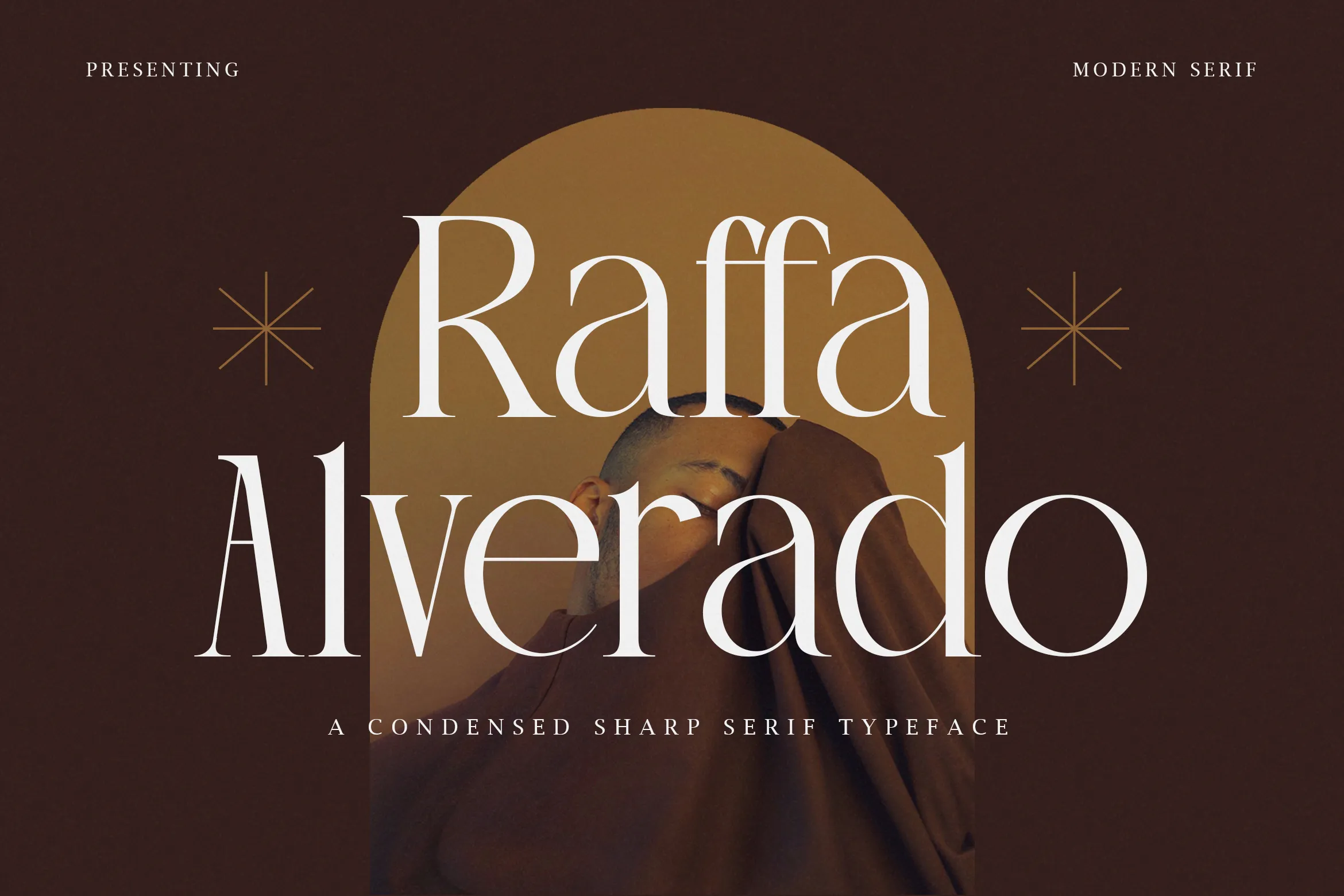
30 Hidden Wisdom from Book Quotes for the Modern Soul
Avid readers usually find book quotes as a voice for the silent emotions humans share. They typically capture the nuance of human struggle and heights of aspirations. Explore the wealth of untapped wisdom that resonates across generations we’ve compiled from favorite books and authors.
Book Quotes on Life, Nature, and Simple Truths
- “It is a fine thing to have a reward for duty, but it is a much finer thing to have a reward for love.” — Black Beauty by Anna Sewell
- “The world is so full of a number of things, I’m sure we should all be as happy as kings.” — Little House on the Prairie by Laura Ingalls Wilder
- “The best way to treat obstacles is to use them as stepping-stones. Laugh at them, tread on them, and let them lead you to something better.” — Mr. Galliano’s Circus by Enid Blyton
- “The most important thing we learn at school is that the most important things can’t be learned at school.” — Totto-Chan: The Little Girl at the Window by Tetsuko Kuroyanagi
- “If you only read the books that everyone else is reading, you can only think what everyone else is thinking.” — Norwegian Wood by Haruki Murakami
- “A little nonsense now and then is cherished by the wisest men.” — Charlie and the Great Glass Elevator by Roald Dahl
- “A book is like a garden, carried in the pocket.” — The Door-to-Door Bookstore by Carsten Henn
- “It’s much more important to be a little bit nice than it is to be a little bit wise.” — The Wind in the Willows by Kenneth Grahame
- “The presence of God is the finest of rewards.” ― Yann Martel, Life of Pi
- “He who is content with what has been done is a legacy from the past; he who is content with what he is doing is a creator of the future.” — The Wisdom of the Sands
- “The truth is rarely pure and never simple.” — The Importance of Being Earnest
Iconic Quotes from Books Regarding Love and Resilience
- “I am not afraid of storms, for I am learning how to sail my ship.” — Little Women by Louisa May Alcott
- “The world breaks everyone, and afterward, many are strong at the broken places.” — A Farewell to Arms by Ernest Hemingway
- “For you, a thousand times over.” — The Kite Runner by Khaled Hosseini
- “I think people make their own faces as they grow.” — The Naughtiest Girl by Enid Blyton
- “Pain is inevitable. Suffering is optional.” — What I Talk About When I Talk About Running by Haruki Murakami
- “Empires have collapsed throughout history. They rise, they build, and they fall. Nothing lasts forever. Not even our pain.” — As Long as the Lemon Trees Grow (2022) by Zoulfa Katouh
- “True courage is when you know you’re licked before you begin, but you begin anyway and you see it through no matter what.” — To Kill a Mockingbird by Harper Lee
- “Love does not consist in gazing at each other, but in looking outward together in the same direction.” — Airman’s Odyssey
- “A heart is not judged by how much you love but by how much you are loved by others.” — The Wonderful Wizard of Oz
- “I am not afraid of the darkness. Real courage is seeing the darkness and walking through it with a candle.” — The Girl Who Drank the Moon
- “It’s a long way to go, but we have our boots on.” — The Railway Children
- “If you find it difficult, it’s because it contains something that is new to you. Every difficult book offers us a brand-new challenge.” — The Cat Who Saved Books
Popular Book Quotes on Hope and Dreams
- “At the end of the day, we are all just looking for a place to belong.” — DallerGut Dream Department Store by Miye Lee
- “People are much more than the mistakes they make.” — The Kite Runner by Khaled Hosseini
- “Even if you can’t change the past, you can change how you live in the present.” — Before the Coffee Gets Cold (Funiculi Funicula) by Toshikazu Kawaguchi
- “Everything is possible for him who believes, and still more for him who hopes.” — The Three Musketeers
- “Tomorrow is always fresh, with no mistakes in it yet.” — Anne of Green Gables by L.M. Montgomery
- “One can’t stay sad very long in such a world, can one?” — Pollyanna by Eleanor H. Porter
- “Don’t worry about the bits you can’t understand. Sit back and allow the words to wash around you, like music.” — Matilda by Roald Dahl
- “It is not only the most difficult thing to know oneself, but the most inconvenient one.” — The Chronicles of Narnia
Creative Use of Famous Book Quotes
These book quotes are also useful to build emotional bridges for social media, posters, and storytelling. Write them with elegant and modern fonts below to leave a noteworthy impression.
1. Craftico
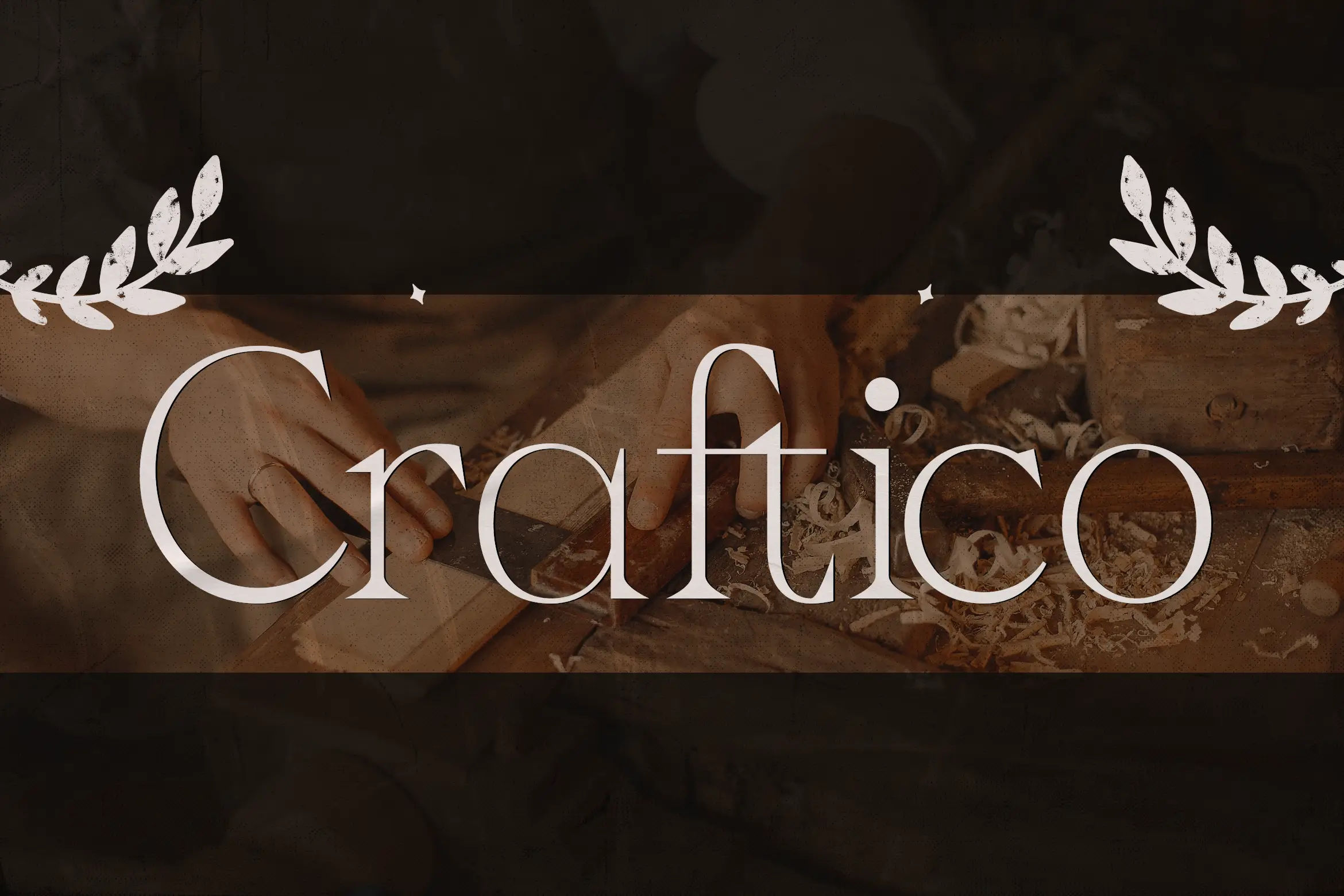
High stroke contrast for sophisticated design flair.
2. Arcadina
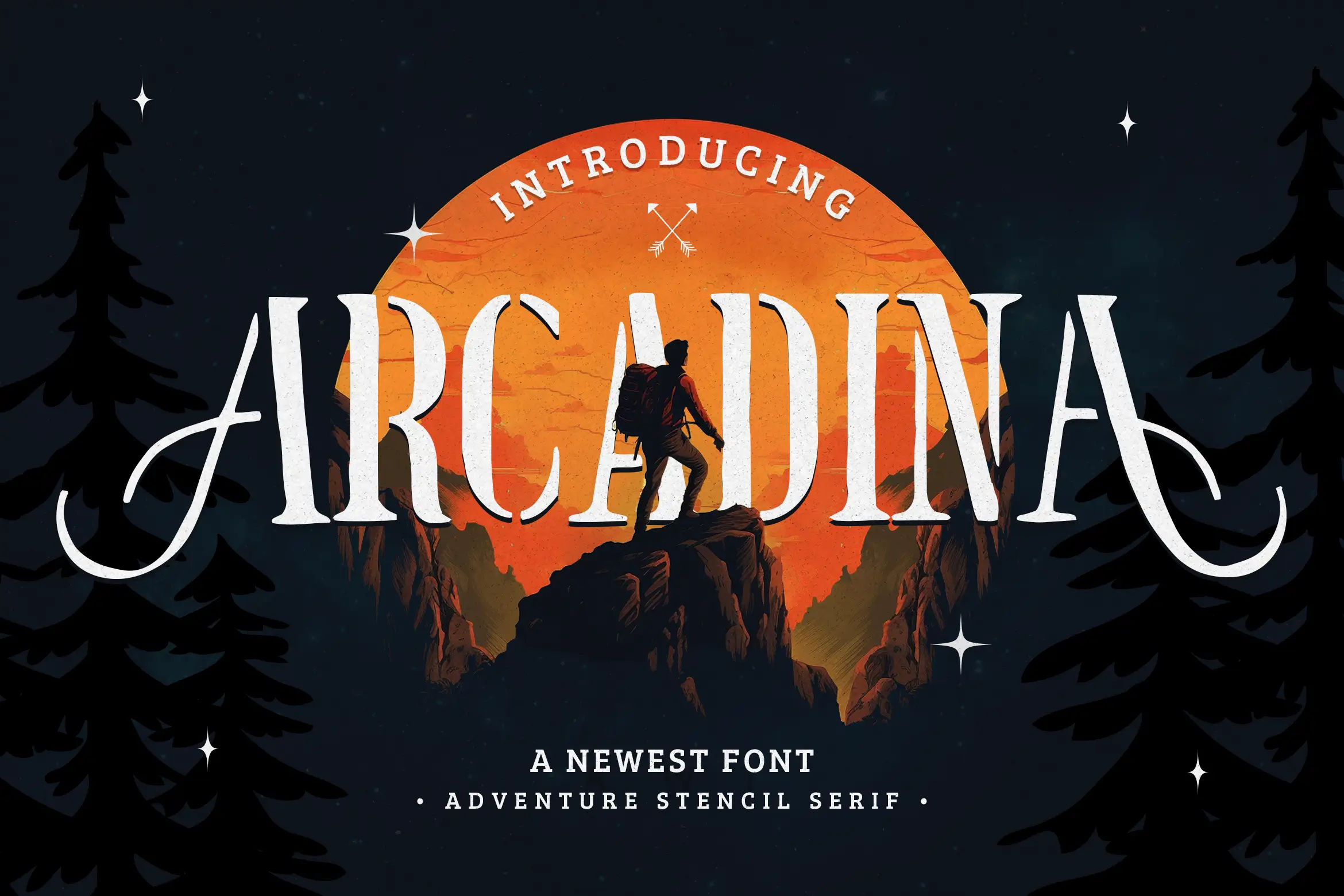
Its rugged, stencil-styled design brings a free-spirit vibe.
3. Rampows
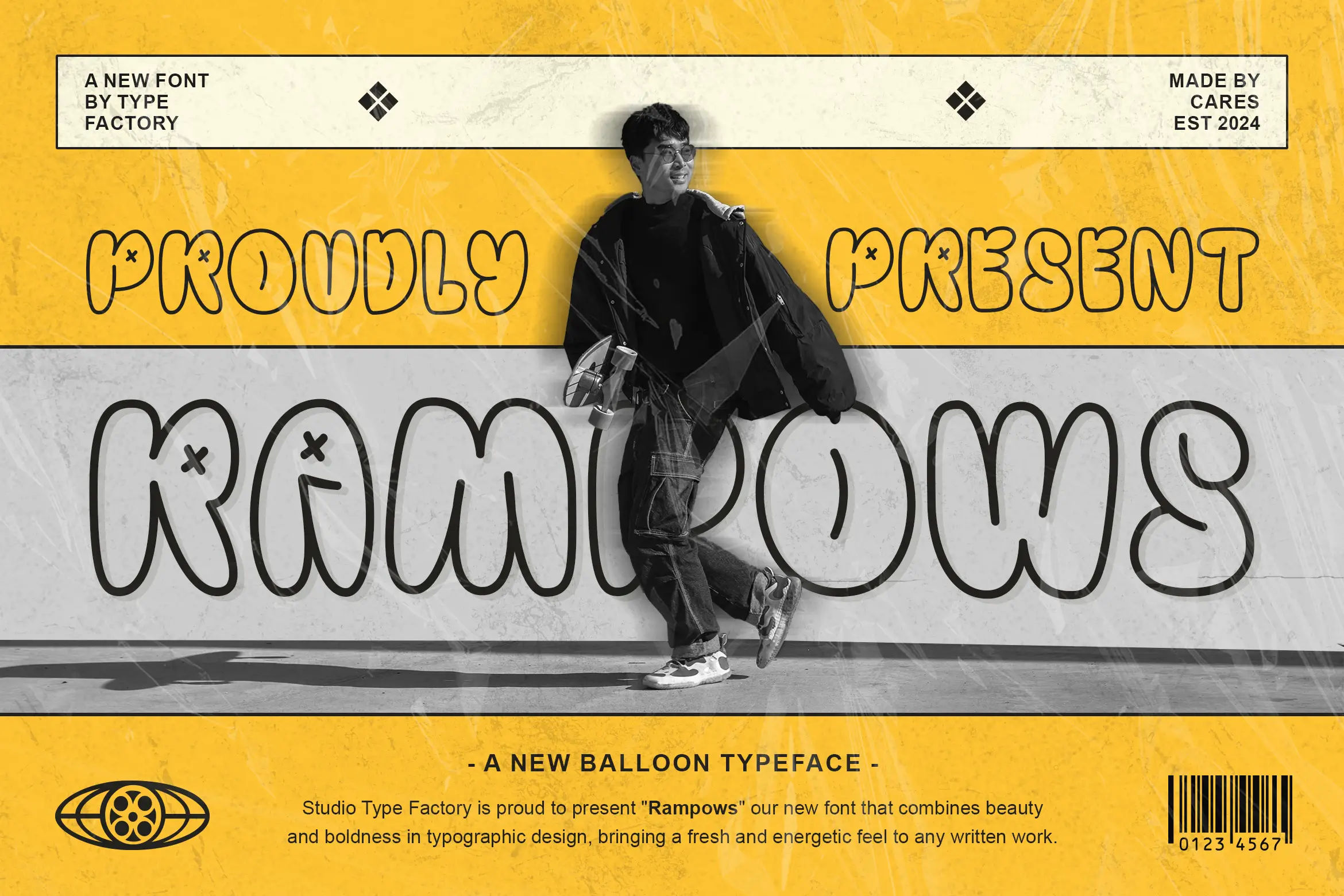
Be more approachable with the bouncy, playful Rampows font design.
4. Raffa Alverado
Sharp letters for sleek and striking modern text.
5. Hortens
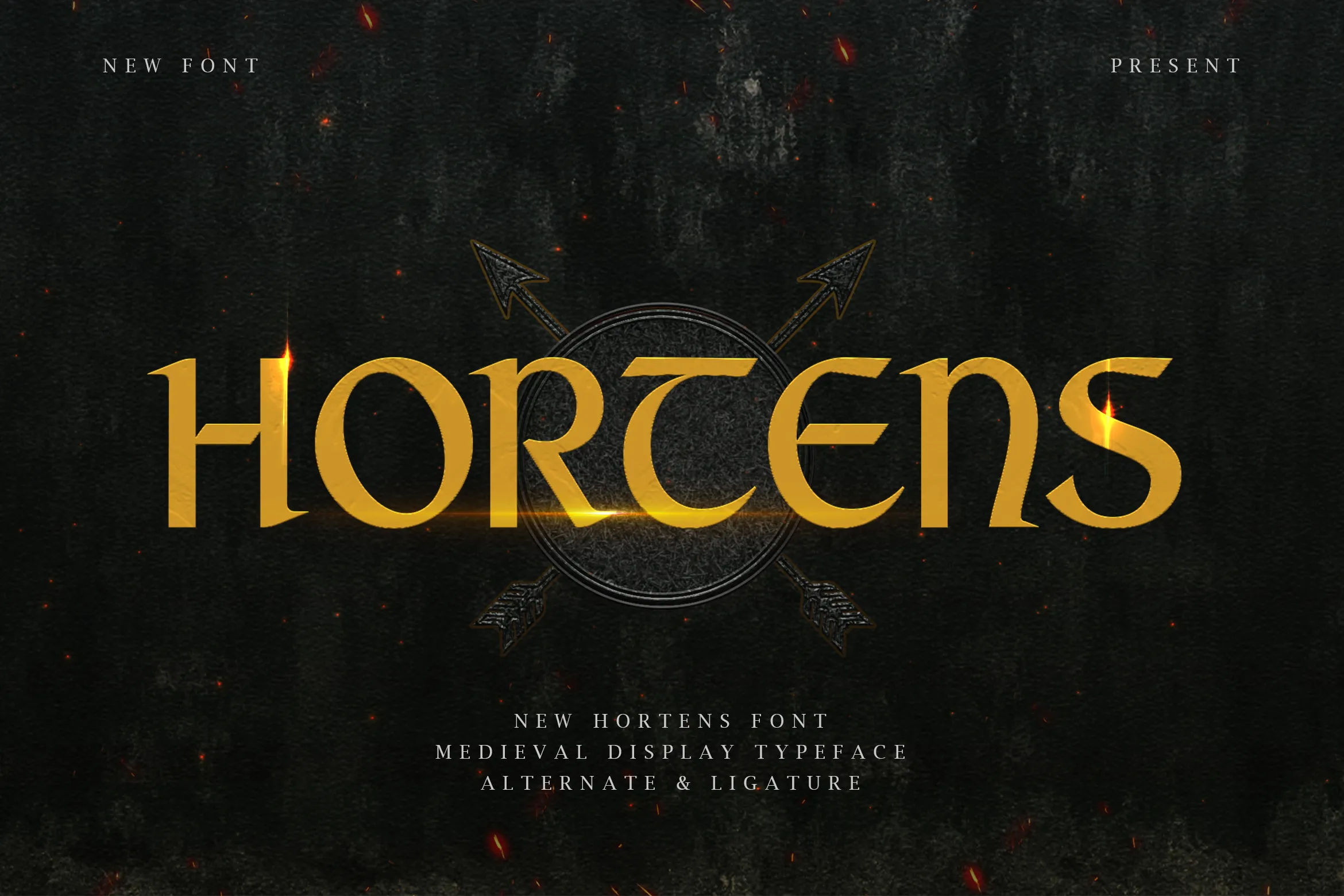
Bring that high-end carve style for a versatile look.
6. Tariel Valeri
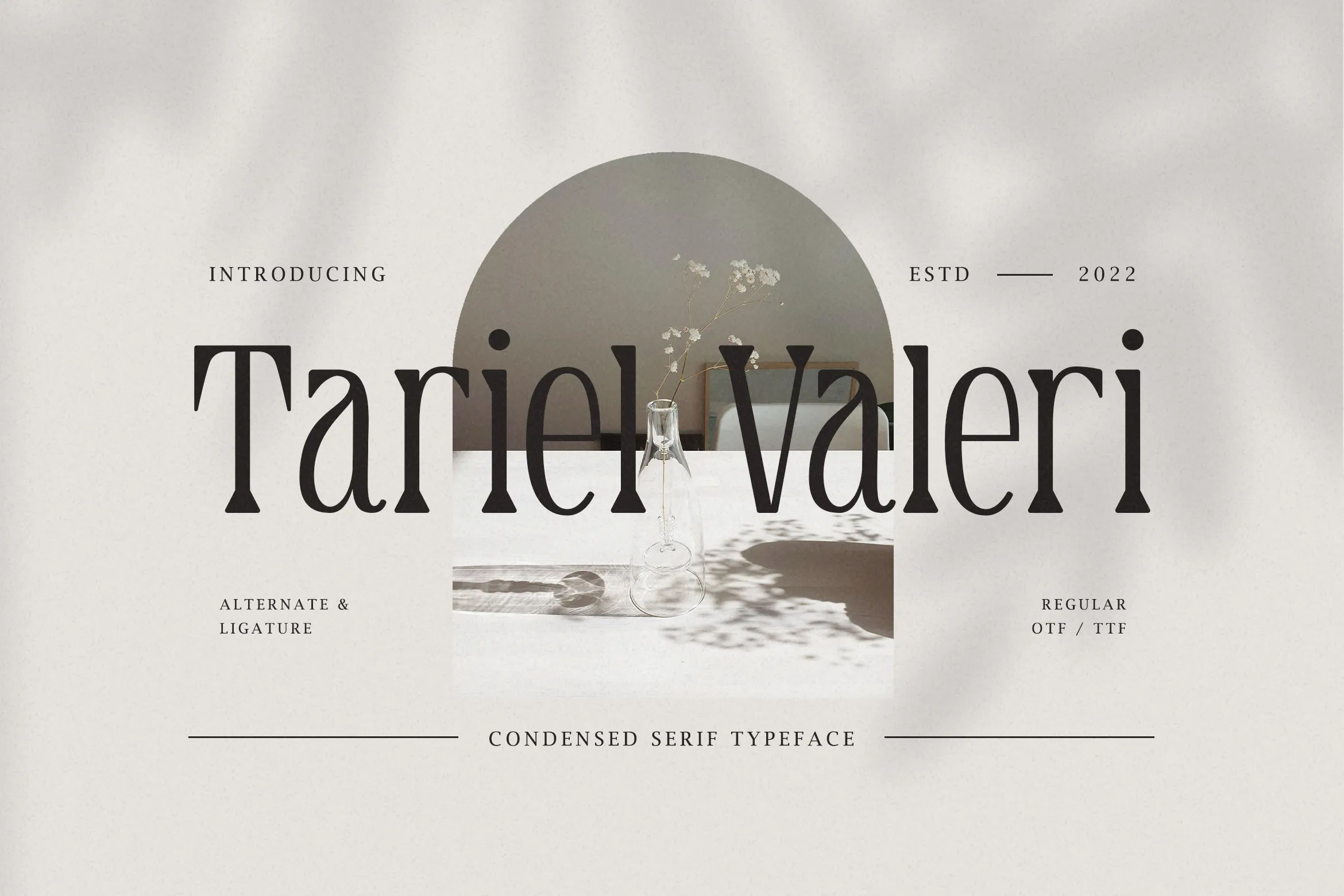
Classy serif makes your copy look sexy.
7. Bridgestrom
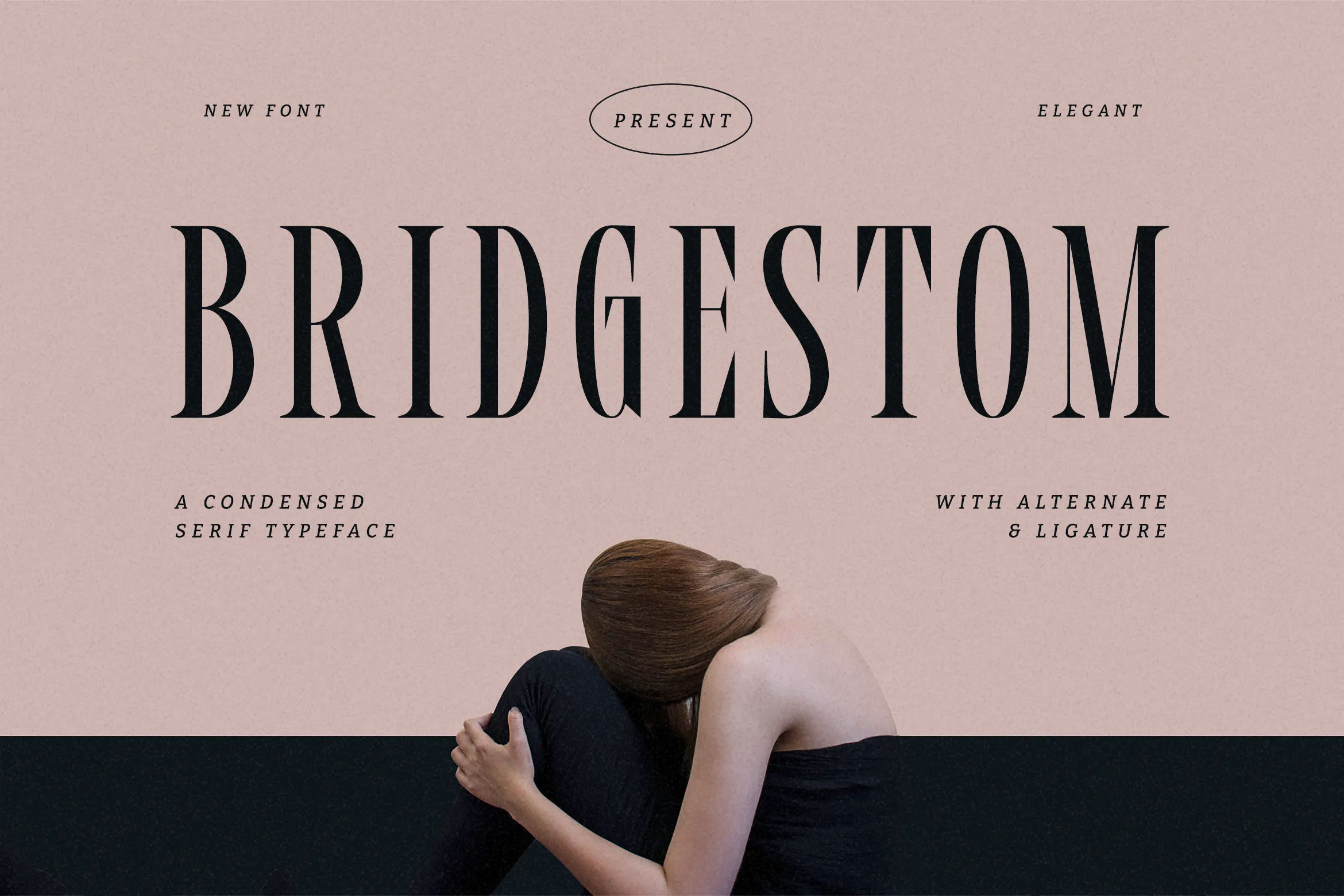
Bridgestrom for a simple feminine tone.